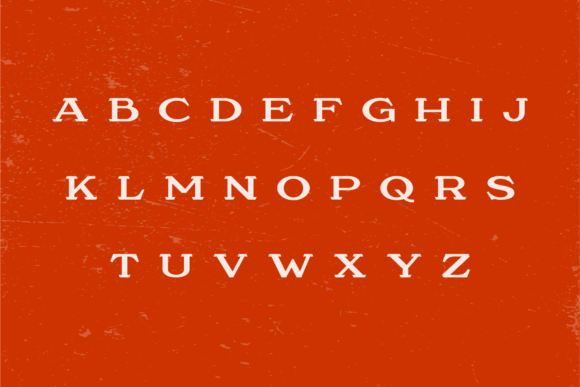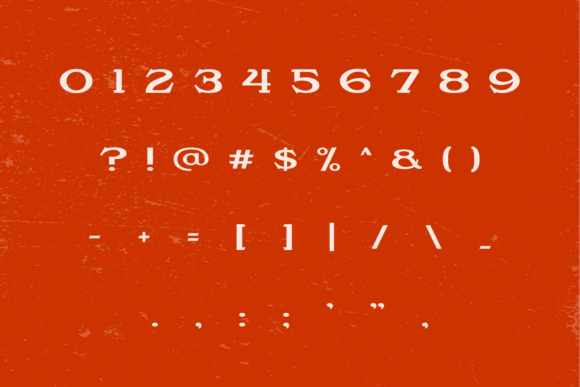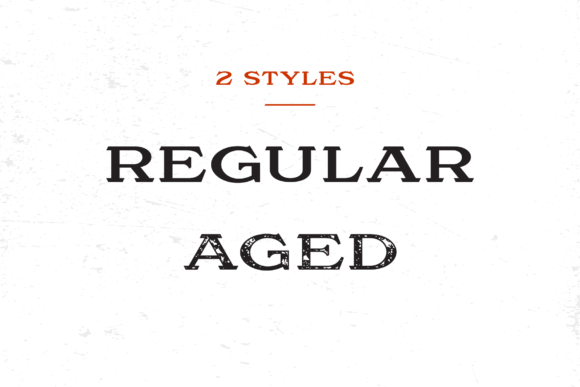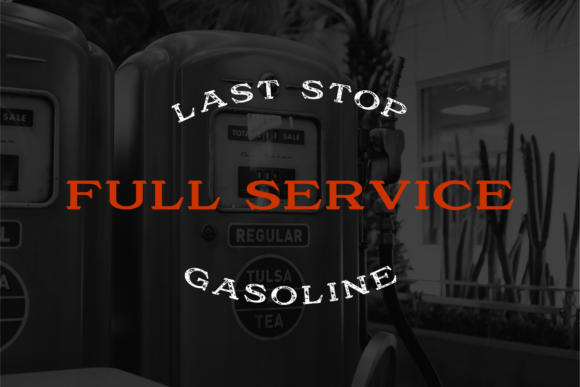
The Designer’s Delight: Unleashing the Power of Gasoline Font
I’ll never forget the struggle I faced while working on a vintage-themed project for a client. I had spent hours scouring the internet for the perfect font, but nothing seemed to fit the bill. That was until I stumbled upon Gasoline Font. It was love at first sight! 😍 With its assertive and vintage styled serif design, Gasoline Font instantly elevated my project and exceeded my client’s expectations. In this article, I’ll share my experience with Gasoline Font, its features, and how to make the most of it in various design platforms.
An Honest Review: The Good and the Quirks
What I Love About Gasoline Font ✨
- ✅ Unique and distinctive design that adds a touch of vintage charm to any project
- ✅ Extensive range of OpenType features, glyphs, and stylistic alternates
- ✅ Works beautifully for both digital and print projects
- ⚠️ Some users may find the font a bit too bold for certain projects
- ⚠️ Limited availability of condensed or italic versions
The Designer Inspiration Behind Gasoline Font
Gasoline Font was inspired by the classic cars and typography of the 1950s. Its designer, a typography enthusiast, aimed to create a font that would evoke the nostalgia and charm of a bygone era. The result is a font that’s both unique and timeless.
| Font Name | Gasoline Font |
| Author | Studio One Four |
| What type of projects is Gasoline Font best suited for? | Gasoline Font is versatile and can be used for a wide range of projects, from vintage-themed designs to modern and minimalist projects. |
| Is Gasoline Font suitable for body text? | While Gasoline Font is highly legible, it’s best suited for headlines and titles. For body text, you may want to choose a more traditional serif font. |
In conclusion, Gasoline Font is a unique and versatile font that’s perfect for designers, crafters, and creative hobbyists. With its assertive and vintage styled serif design, it’s sure to elevate a wide range of creations. So, go ahead and unleash your creativity with Gasoline Font! 🚗